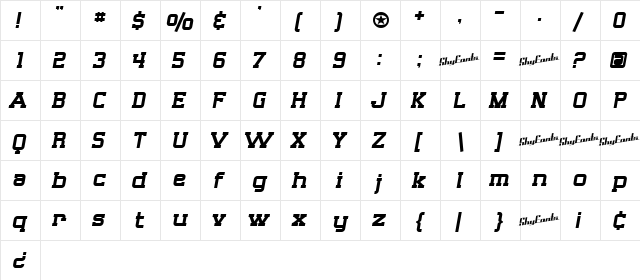
SF Big Whiskey Regular
Design Context for SF Big Whiskey Typeface
SF Big Whiskey takes a measured approach to typography — its balanced proportions and neutral character make it a reliable workhorse for both digital and print work.